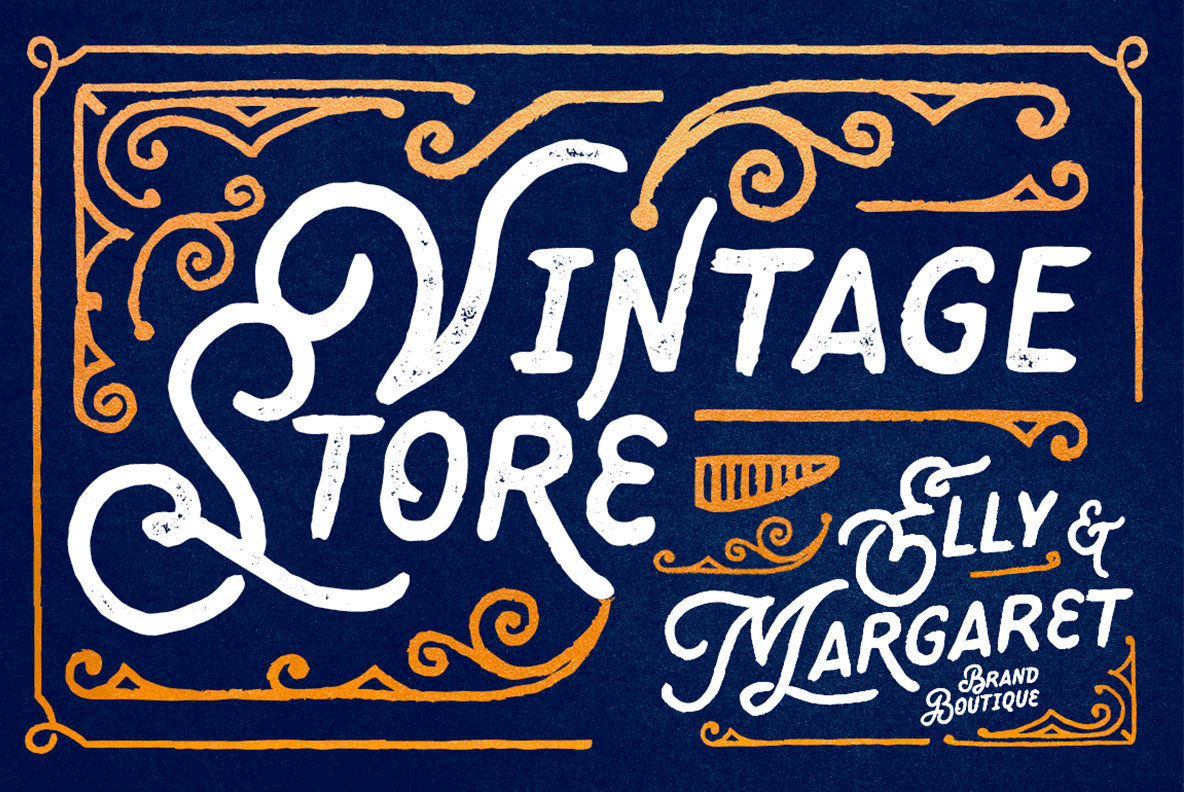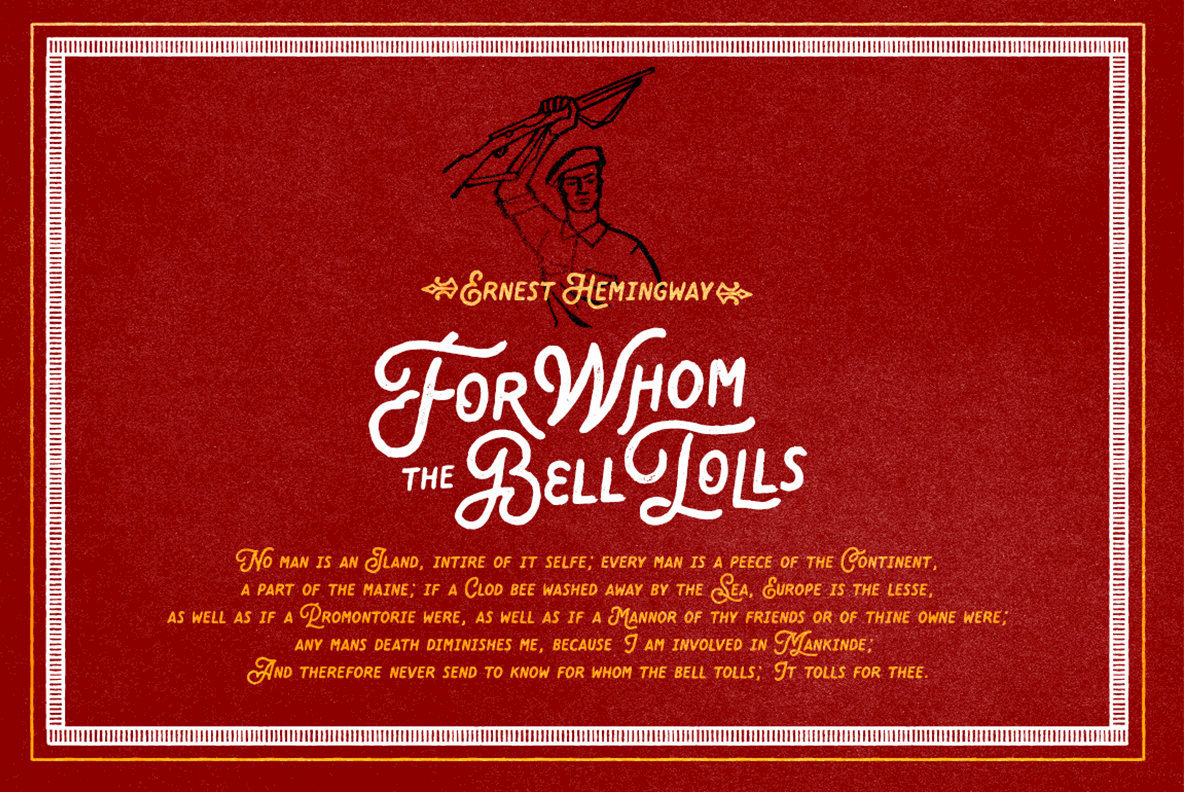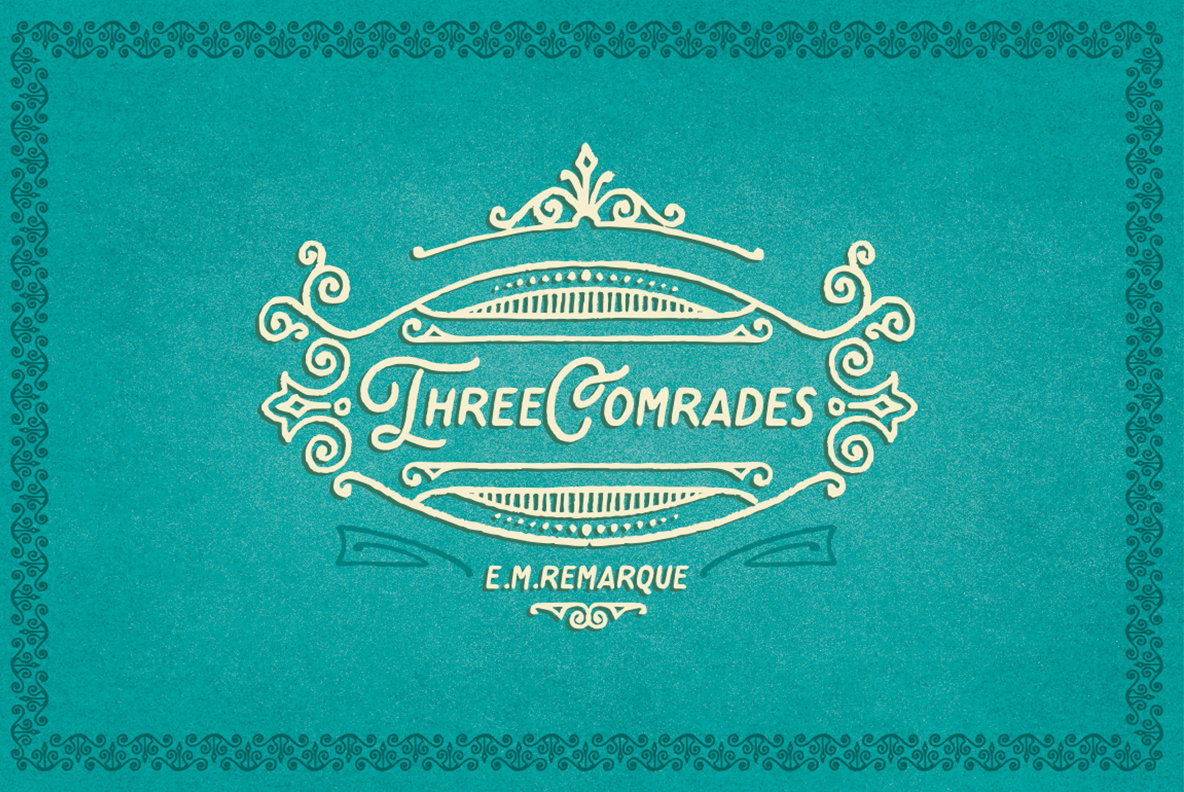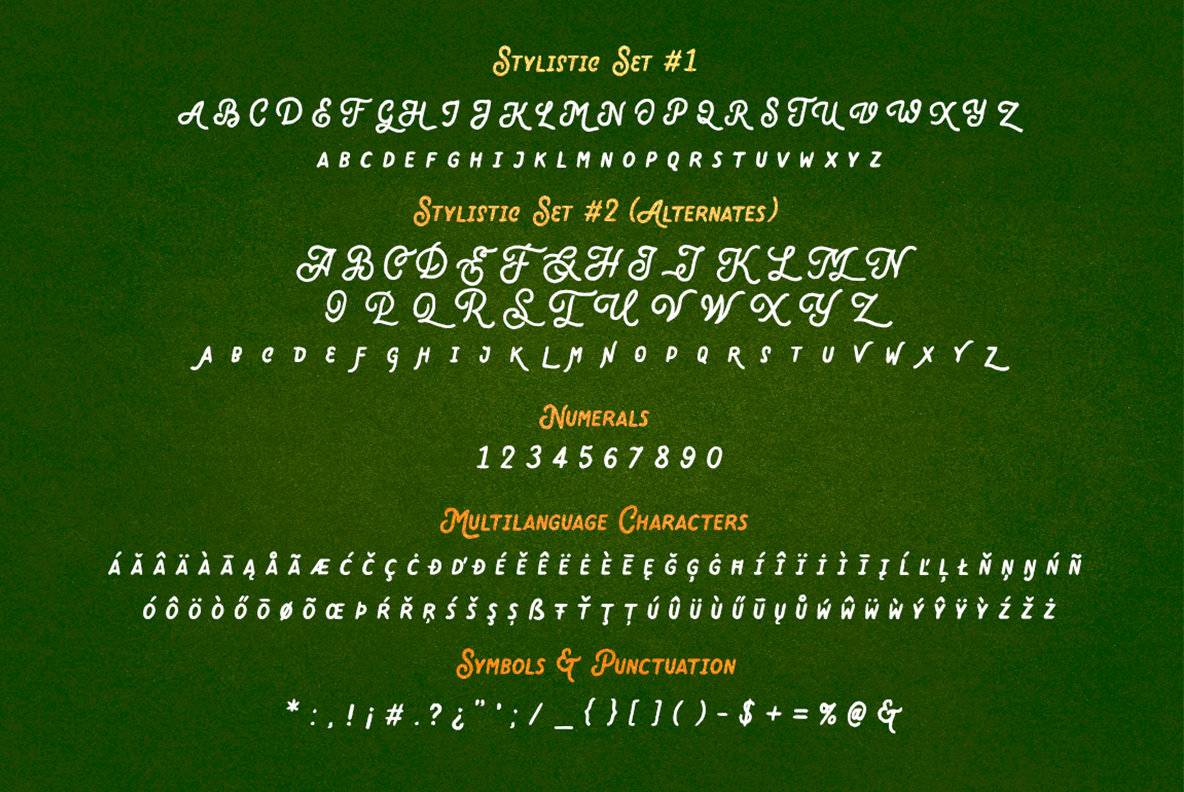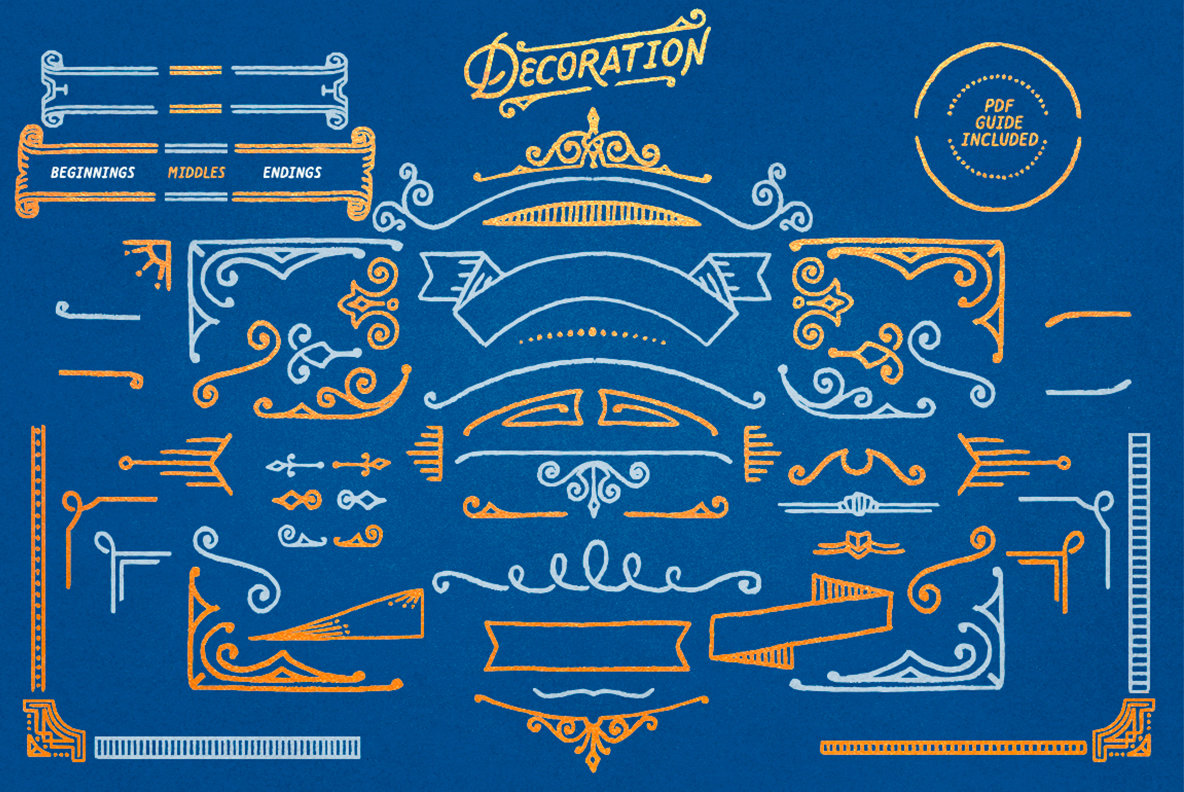
Old Standard Font
Old Standard Regular
Old Standard Decorate
Old Standard Vintage
Old Standard is a distressed and retro style script design, published by Vintage Voyage Design.
Nostalgia is a powerful force and it's no wonder that people love to use vintage aesthetics in their design projects. Vintage Voyage Design is an award-winning design studio that specializes in creating these exact beautiful, handcrafted retro and vintage style fonts and graphics that everyone can download and...